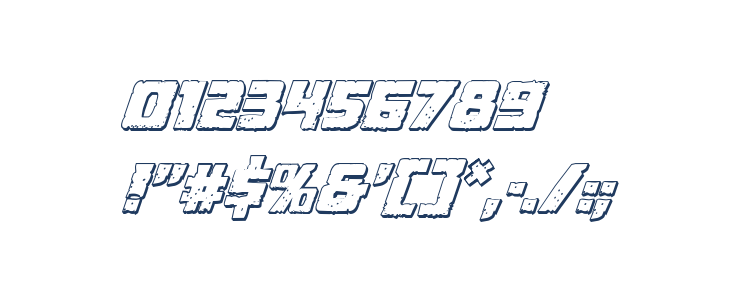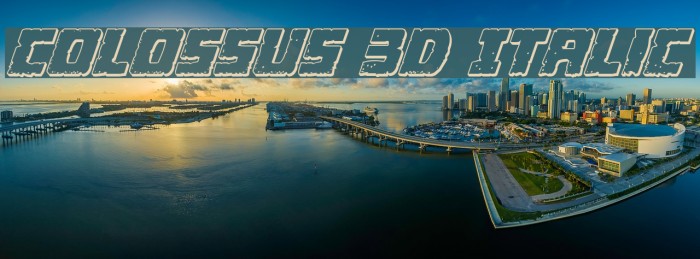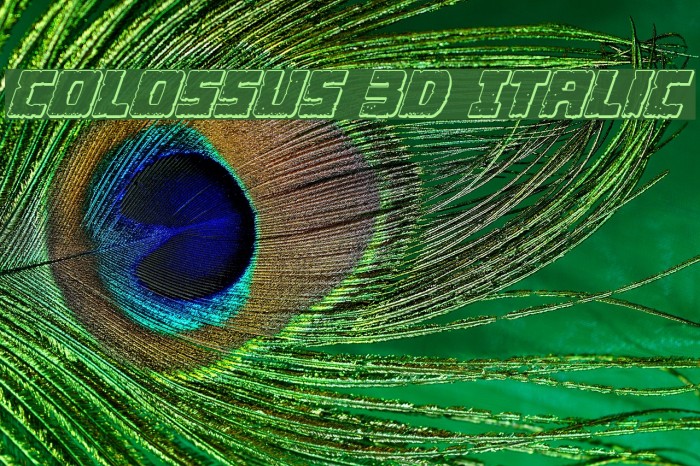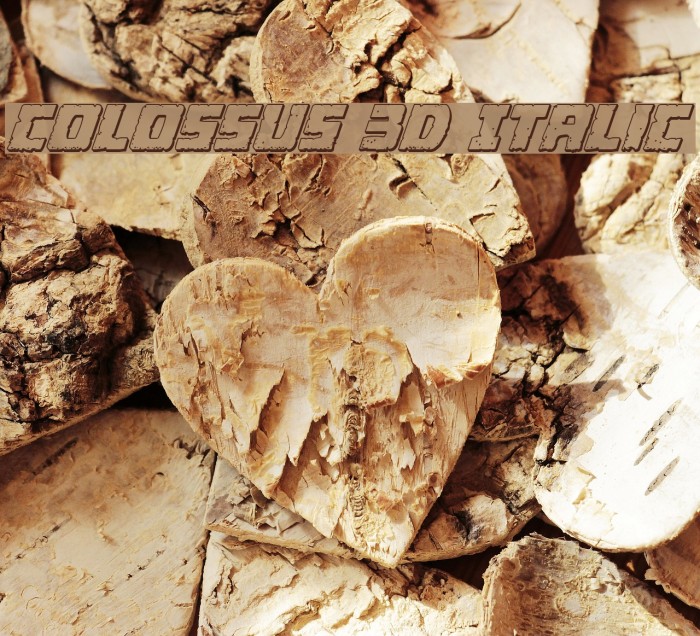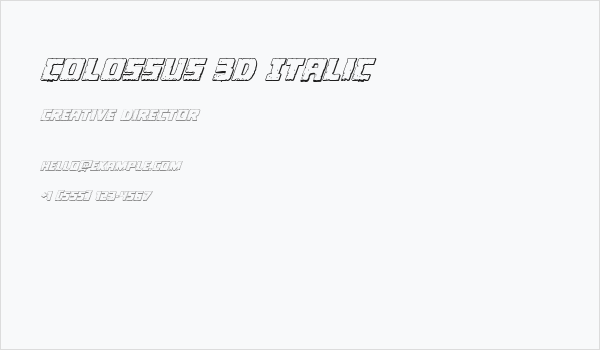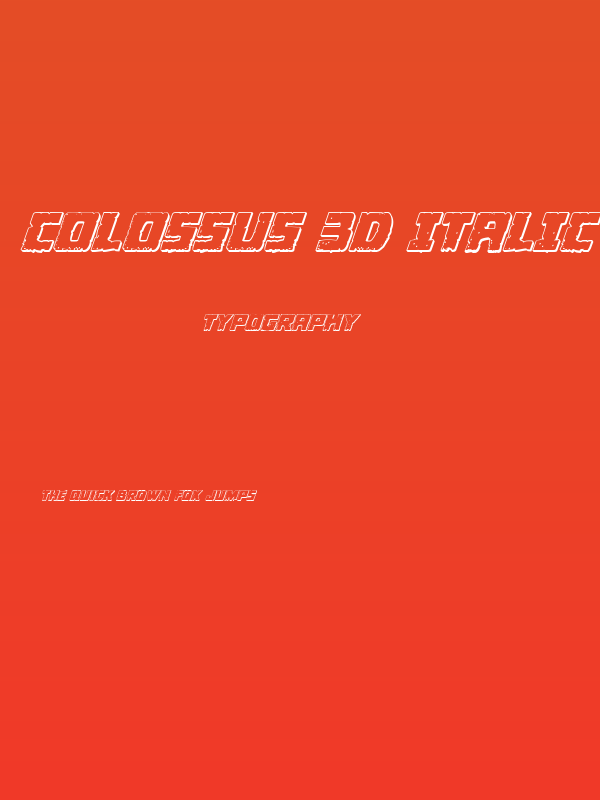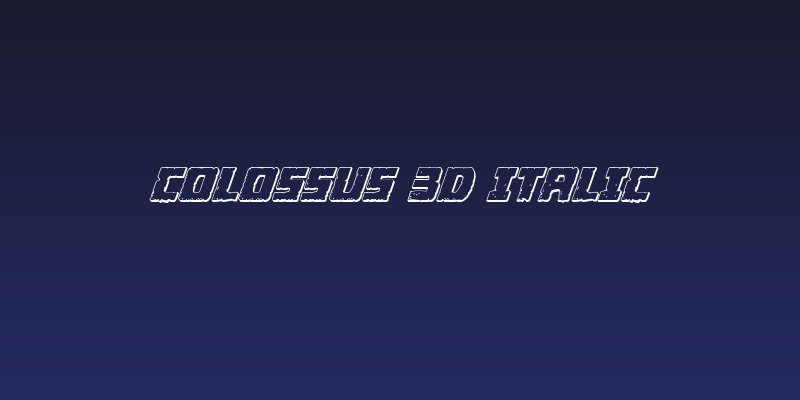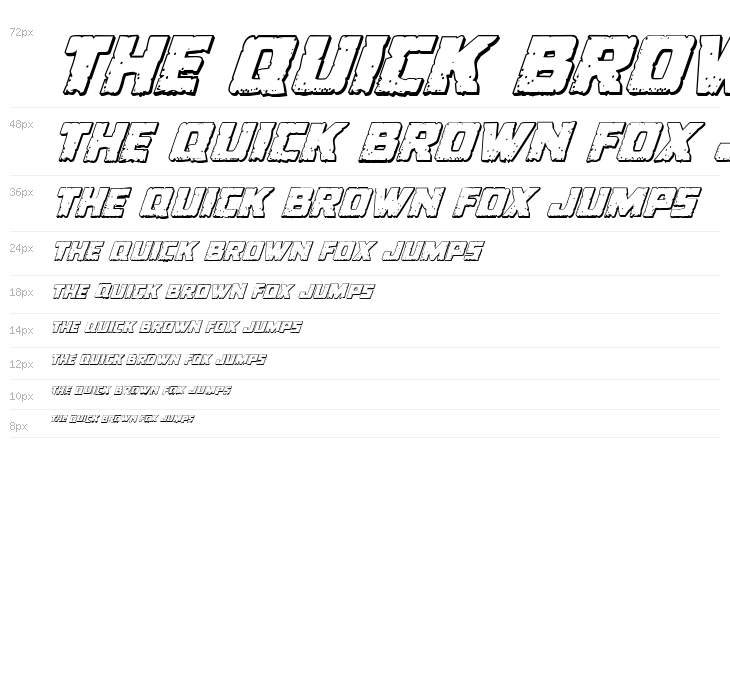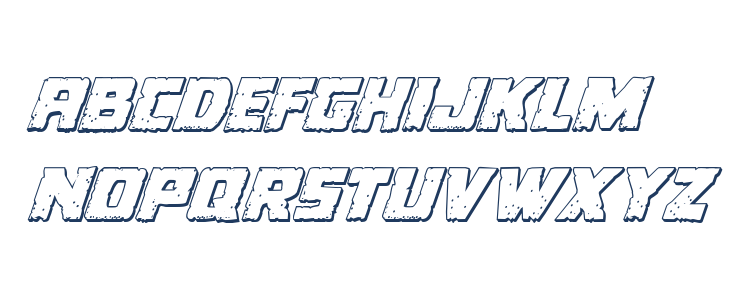
Colossus 3D Italic Font
Colossus 3D Italic Description
This font features a bold, three-dimensional appearance with a distinct italic slant, giving it a dynamic and impactful look. The characters are outlined with a shadow effect, enhancing the 3D illusion. Each letter and number is robust and chunky, with a slightly rough texture that adds a gritty, industrial feel. The font's design is consistent across uppercase, lowercase, and numerical characters, maintaining a cohesive style. Special characters are also included, matching the bold and textured aesthetic. This font is ideal for projects that require a strong visual presence and a modern, edgy vibe.
| Proposed Projects | Ideal for video game titles, movie posters, sports branding, and any project needing a bold, dynamic typeface. |